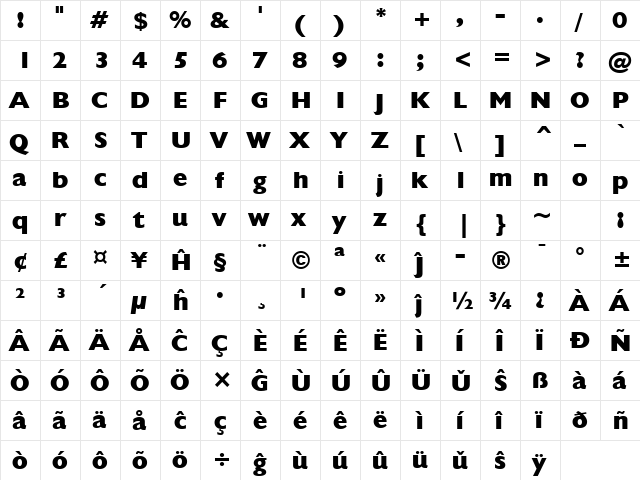
Humanst521 XBd BT Eo Extra Bold
Design Context for Humanst521 XBd BT Eo Typeface
Humanst521 XBd BT Eo is a composed and adaptable typeface that performs quietly and consistently across a wide range of design contexts. The heavy weight commands attention and anchors typographic hierarchies.
Pro Tip: Pair Humanst521 XBd BT Eo with a font of contrasting weight or personality to build a more expressive typographic hierarchy.